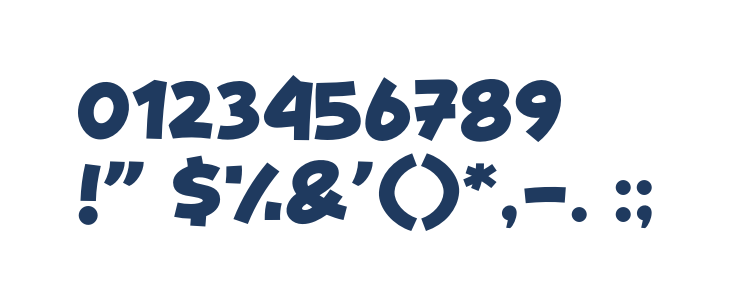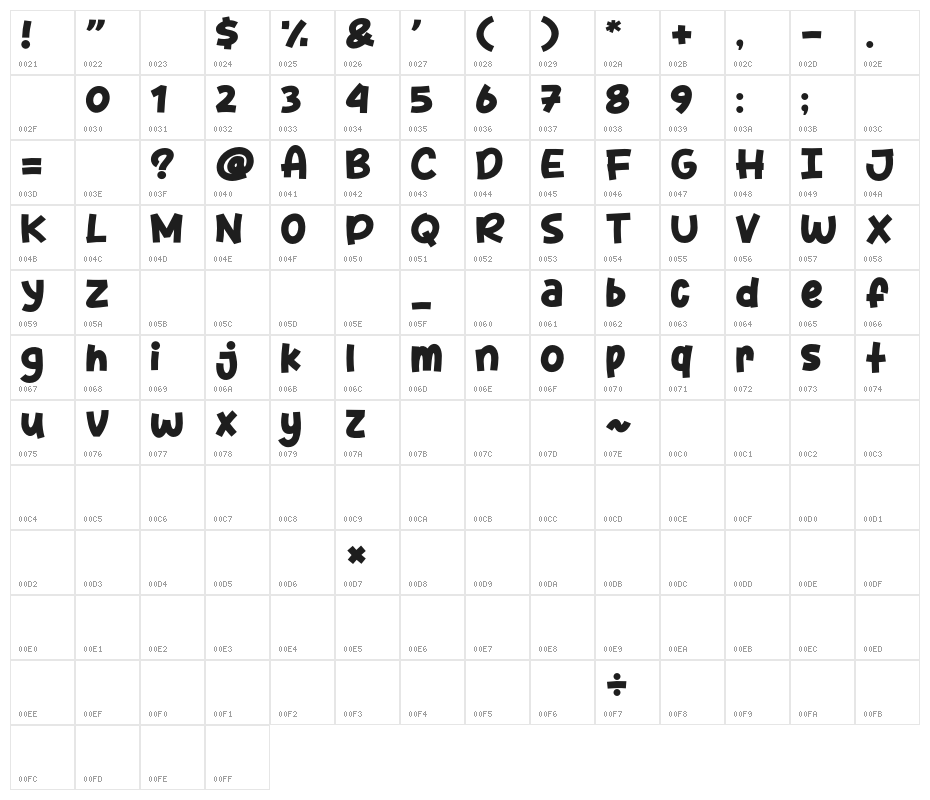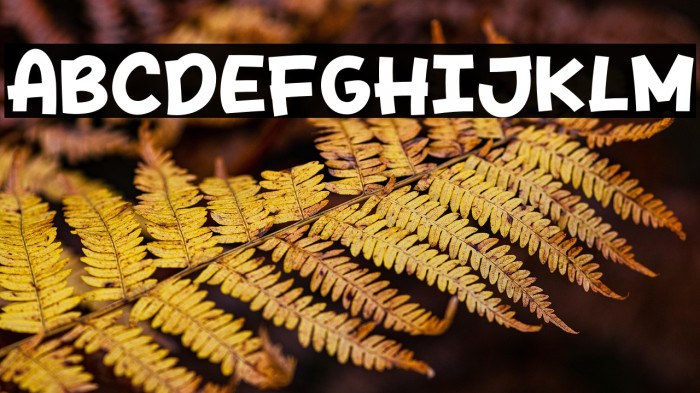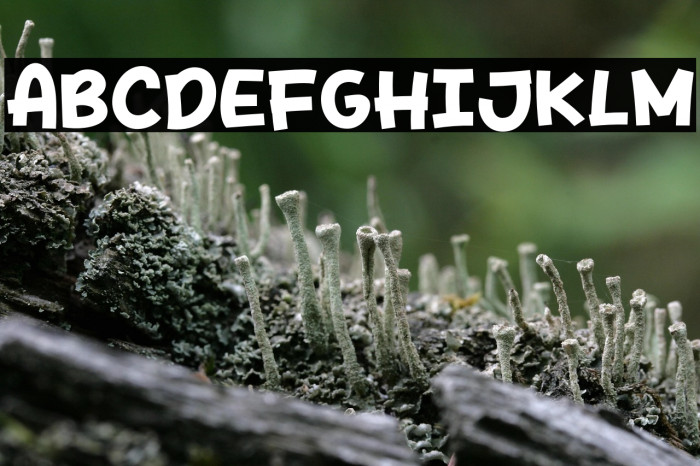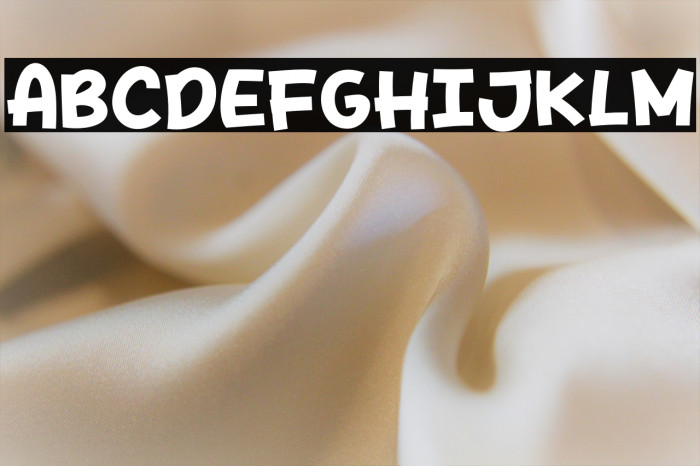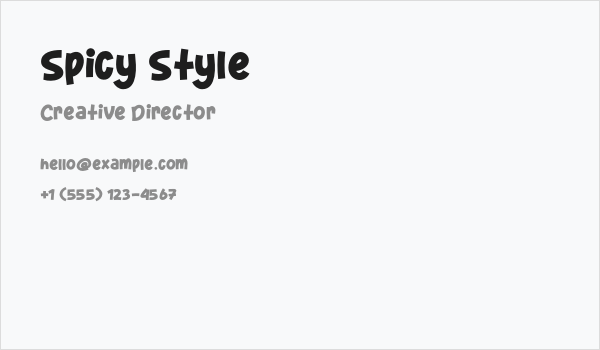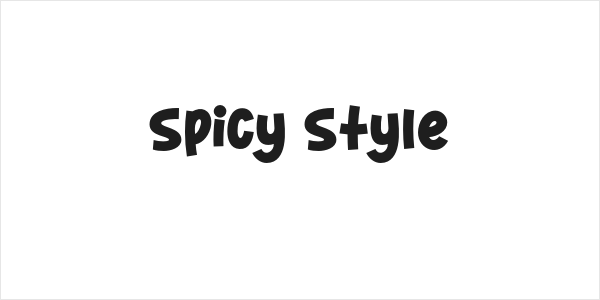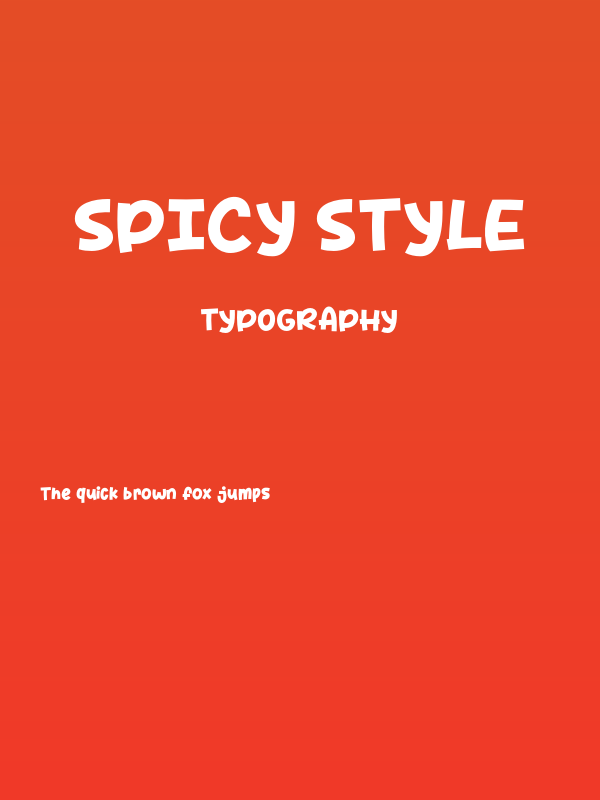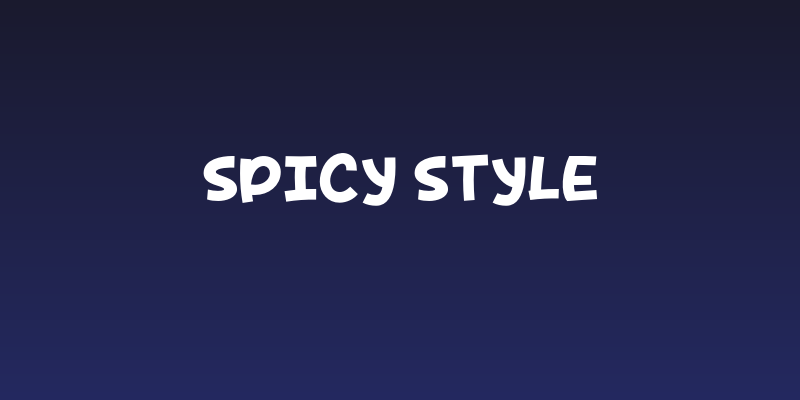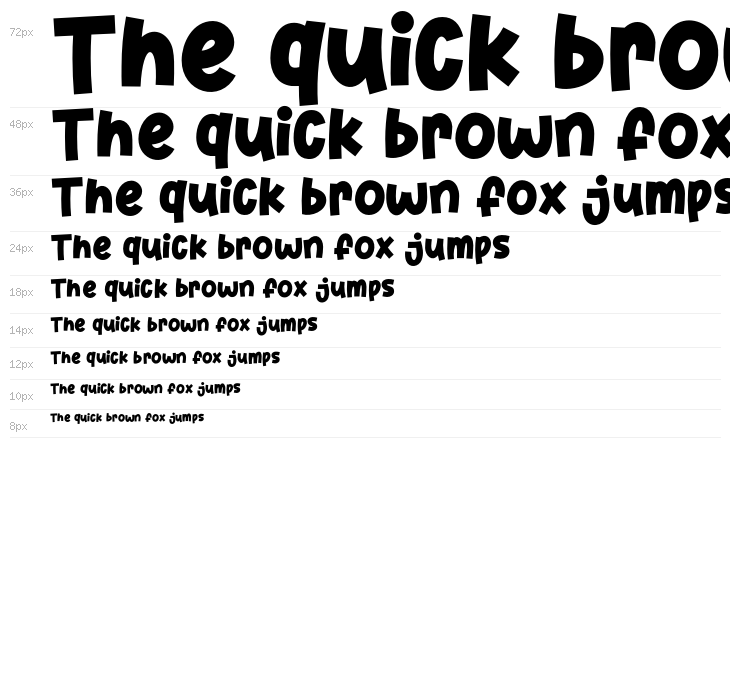
Spicy Style Font
Spicy Style Description
This font features a bold and playful style with exaggerated curves and a slightly uneven baseline, giving it a lively and dynamic appearance. The characters are thick and rounded, creating a sense of fun and energy. The uppercase letters are particularly striking, with a strong presence that commands attention. The lowercase letters maintain the same playful aesthetic, with a consistent weight and width throughout. Numbers and special characters are designed to match the overall style, ensuring a cohesive look across all text elements.
| Overall Style | Playful, Energetic |
| Proposed Projects | Ideal for children's books, comic strips, playful branding, and eye-catching posters. |